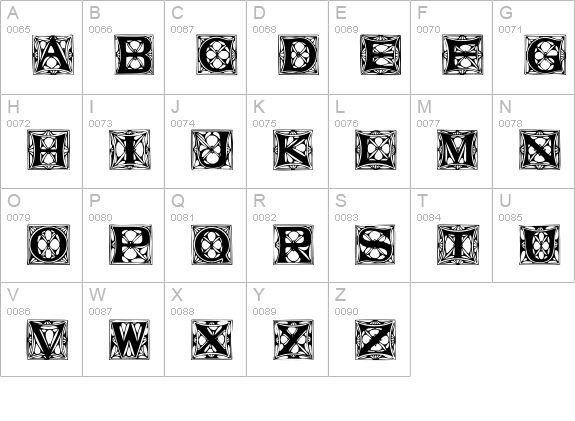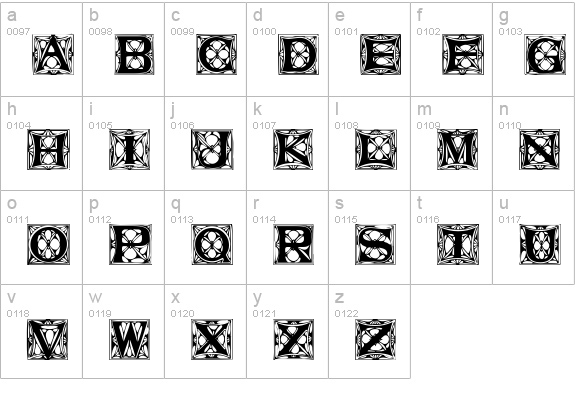
AromatCapsSSK Font Details
AromatCapsSSK font is a beautifully designed typeface that exudes elegance and sophistication. With its stylish and modern look, this font is perfect for adding a touch of class to any project. The intricate details and unique flourishes of AromatCapsSSK make it a standout choice for designers looking to create eye-catching designs. What sets AromatCapsSSK apart is that it is not only visually stunning, but also incredibly versatile. Whether you're working on a branding project, website design, or any other creative endeavor, this font will elevate your work to the next level. The best part is that AromatCapsSSK is available for free download at FontsMarket.com. So, you can easily incorporate this gorgeous font into your projects without breaking the bank. Don't miss out on the opportunity to enhance your designs with the exquisite AromatCapsSSK font - download it today and let your creativity shine!